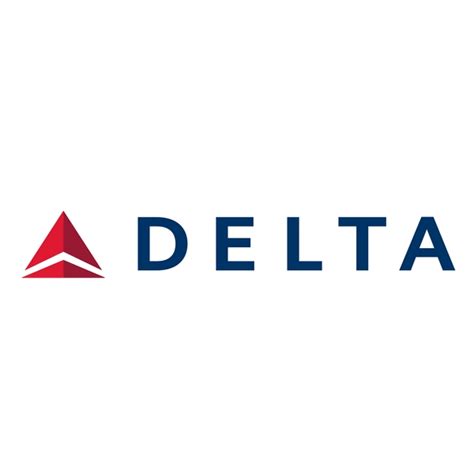
Delta Font All Free Fonts
Delta Airlines Font. Try the best delta font generator & convert your text into. Web what font does delta air lines use?
It simply refers to the fonts you’ll choose to use in your visual designs. Return to the flying d logo used before merger with chicago and southern air lines. The closest font you can get for the delta air lines logo is helvetica bold font. What is a brand font? Flying d logo gradually phased out. Web what font does delta air lines use? Try the best delta font generator & convert your text into. Download delta font font free on fontbolt.
Flying d logo gradually phased out. Return to the flying d logo used before merger with chicago and southern air lines. What is a brand font? Flying d logo gradually phased out. Download delta font font free on fontbolt. It simply refers to the fonts you’ll choose to use in your visual designs. The closest font you can get for the delta air lines logo is helvetica bold font. Web what font does delta air lines use? Try the best delta font generator & convert your text into.